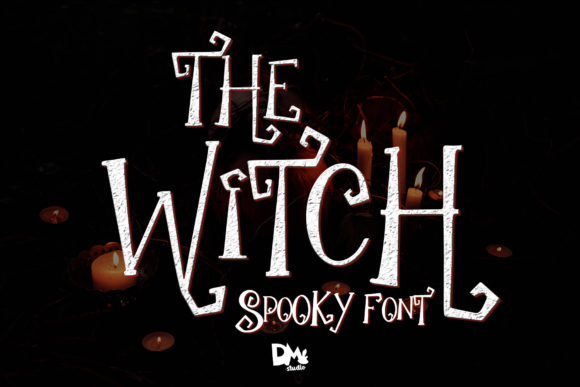
Looking to add a touch of eerie enchantment to your design? Look no further than The Witch Font! This spooky and fun handwritten font is the perfect choice for all your Halloween-themed projects. Created by the talented dmletter31, The Witch Font brings a bewitching charm to your collection of fonts.
With its script style, The Witch Font adds a touch of whimsy and mystery to any text. Whether you're creating invitations for a haunted house party, designing spooky posters, or crafting spellbinding social media graphics, this font will captivate your audience's attention. Its handwritten look adds an authentic and personal touch to your designs, making them stand out in a sea of ordinary fonts.
Embrace the spirit of Halloween with The Witch Font's captivating features. Its unique characters will mesmerize your readers, drawing them into a world of spells and sorcery. Each letter carries its own magical aura, making your text come alive with an enchanting presence. Let your creativity flow as you weave words that cast a spell on anyone who lays eyes on them.
But The Witch Font isn't just for Halloween. Its versatility allows it to be used in a variety of projects year-round. Add a touch of whimsy to your branding, create eye-catching headlines, or give your personal blog a touch of personality. This font knows no bounds and is ready to unleash its captivating powers in any setting.